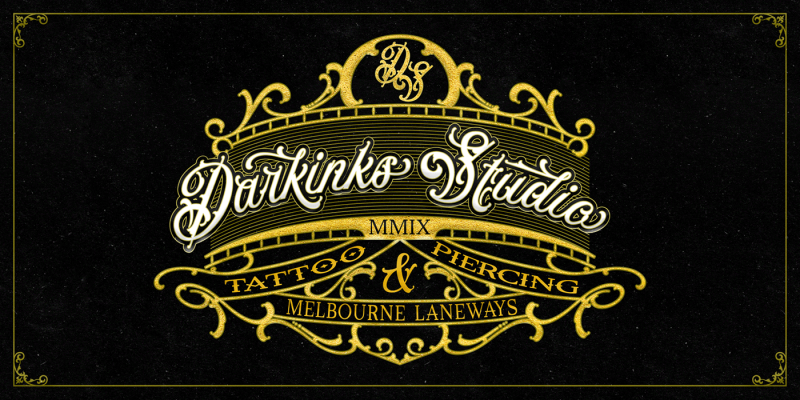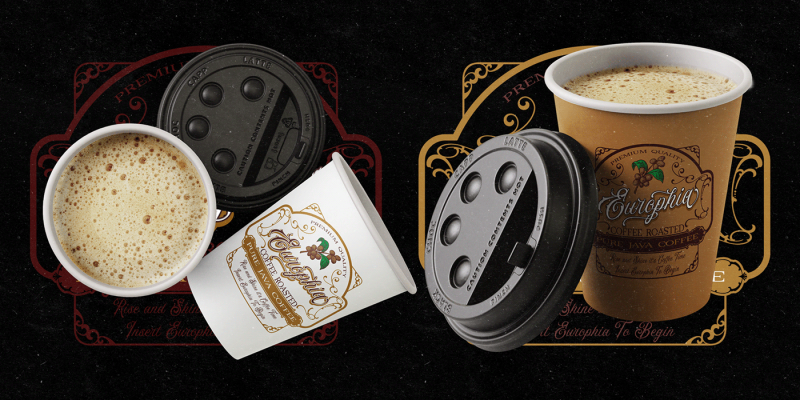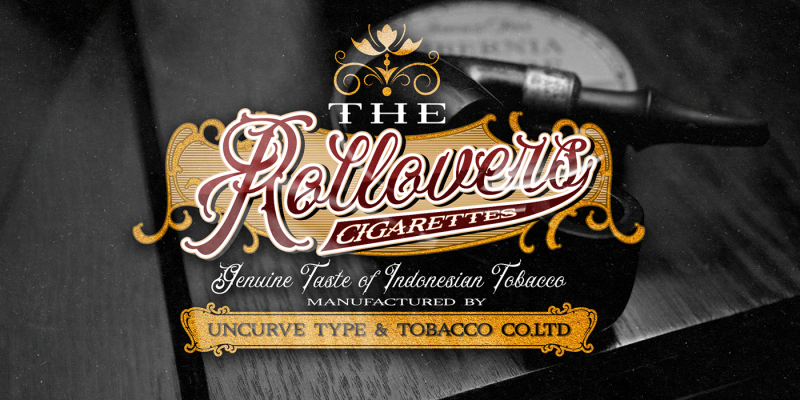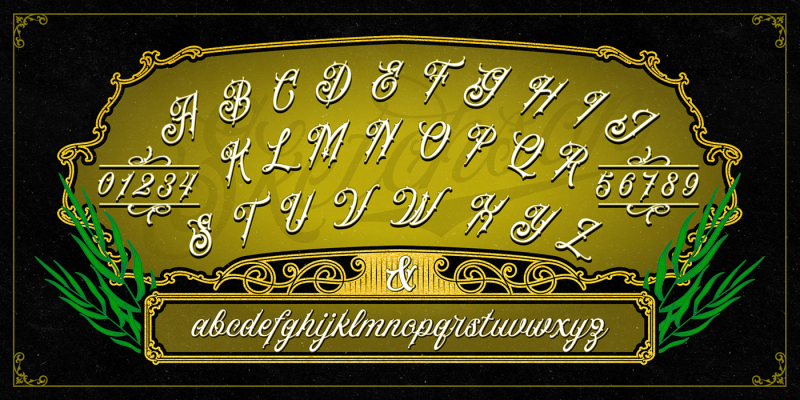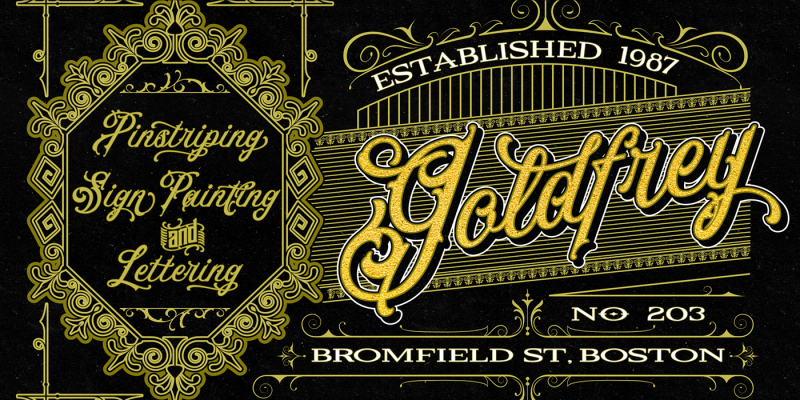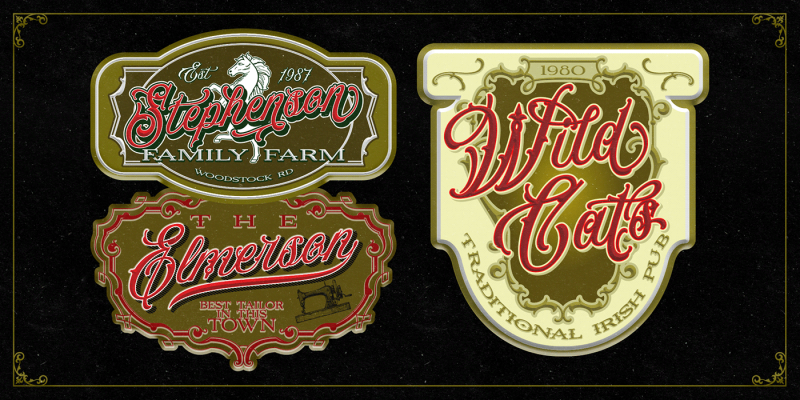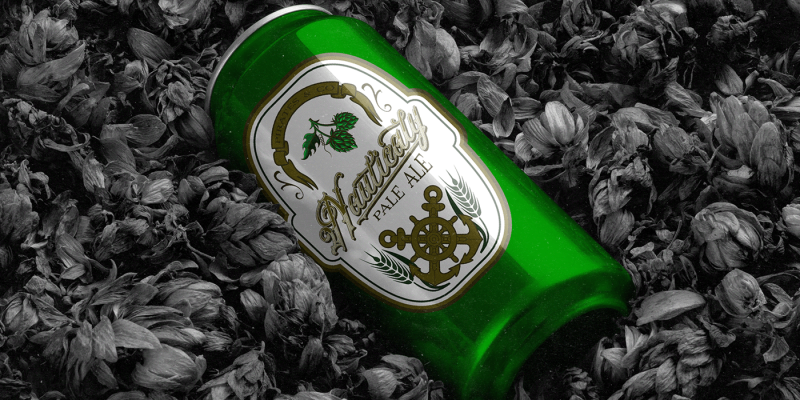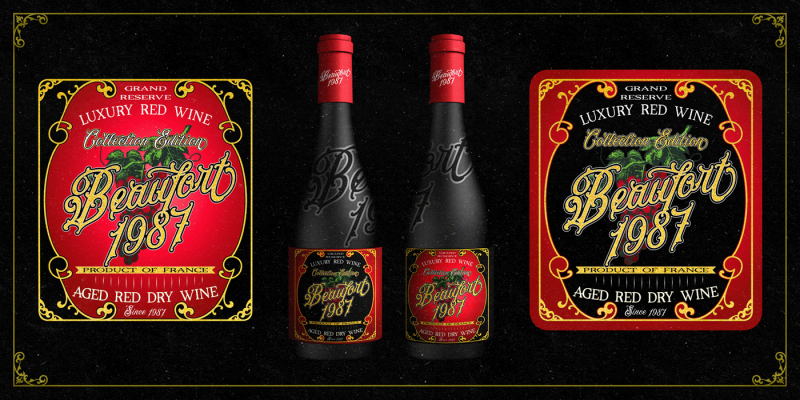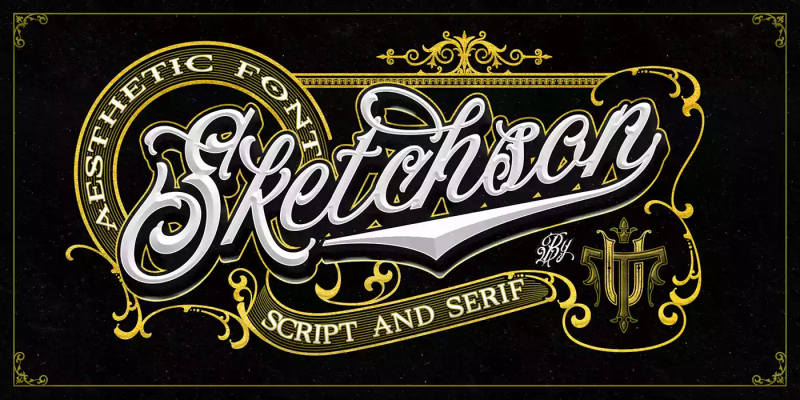
Sketchson Font Family
Sketchson is an aesthetic vintage typography font, contains of script, serif and wide serif. Inspired from the past, elegant signage, gold leaf art , sign painting , let…
Sketchson is an aesthetic vintage typography font, contains of script, serif and wide serif. Inspired from the past, elegant signage, gold leaf art , sign painting , lettering , tattoo , logo and old label product. Sketchson Script comes with tons of alternates characters and special alternate (i) lowercase is a ending swash thats to make more eye cacthy and the Sketchson Serif is a pairing font to combine in your design . finally BOOM..!! you get a great design for your project.